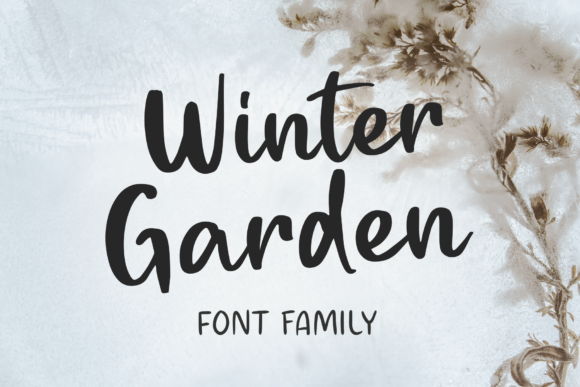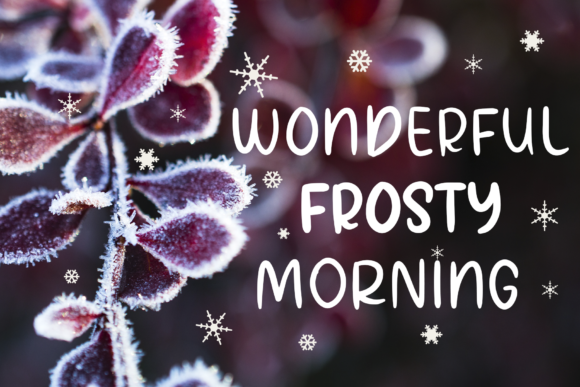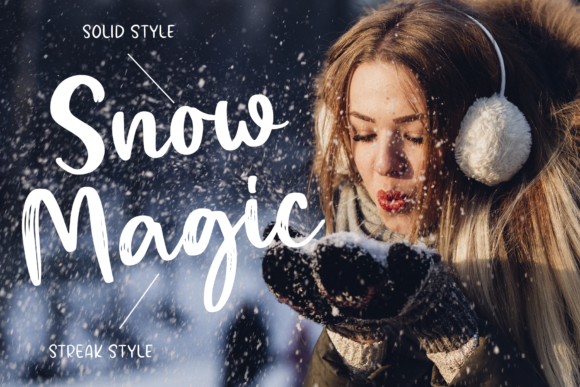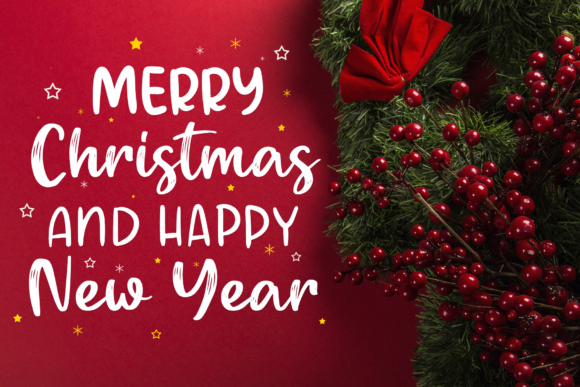
Winter Garden Font
About Winter Garden Font
Winter Garden is a beautifully handwritten font family that includes a script, a script with streaks, and a sans version. These fonts are great for creating templates, invitations, branding, marketing, book covers, magazines, stationery, logo design and much more.